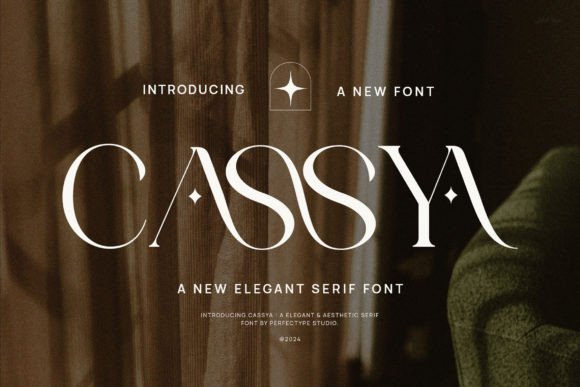
The Elegance of Cassya Font: A Designer’s New Best Friend
I’ll never forget the time I was working on a wedding invitation project, and my client asked for a font that exuded elegance and sophistication. I scoured the internet, tried out countless fonts, but nothing seemed quite right. That was until I stumbled upon the Cassya Font. ✨ It was love at first sight! The perfect blend of classic serif and modern style, Cassya Font has become my go-to for a wide range of design projects.
• 💯 Elegant serif typeface that adds a touch of sophistication to any design
• 🎉 PUA encoded for easy access to amazing glyphs and ligatures
• ✅ High level of readability makes it perfect for body text and headings
• 📚 Versatile and suitable for various design projects, from branding to social media posts
While Cassya Font is an excellent choice, there are a few things to keep in mind: 🤔
• ⚠️ Some users may find the font a bit too slender for certain design applications
• ⚠️ May not be the best choice for very small font sizes, as some details may get lost
The Story Behind Cassya Font
Cassya Font was designed with the intention of creating a elegant, modern serif typeface that would meet the needs of designers seeking a sophisticated font. The designer aimed to create a font that would be versatile, highly readable, and suitable for a wide range of design applications.
Font Name Cassya Font
Author Perfectype
What is Cassya Font? Cassya Font is an elegant serif typeface with a modern style, suitable for various design projects.
Is Cassya Font PUA encoded? Yes, Cassya Font is PUA encoded, allowing for easy access to glyphs and ligatures.
Is Cassya Font suitable for body text? Yes, Cassya Font has a high level of readability, making it suitable for body text and headings.